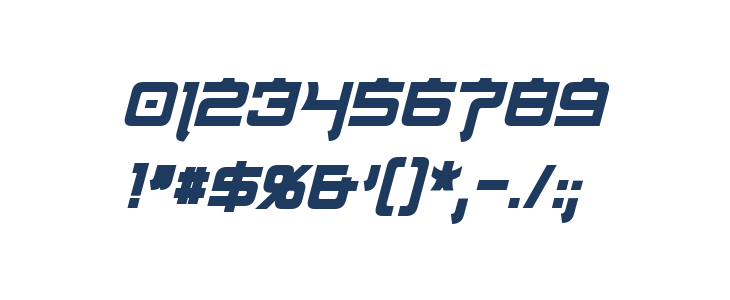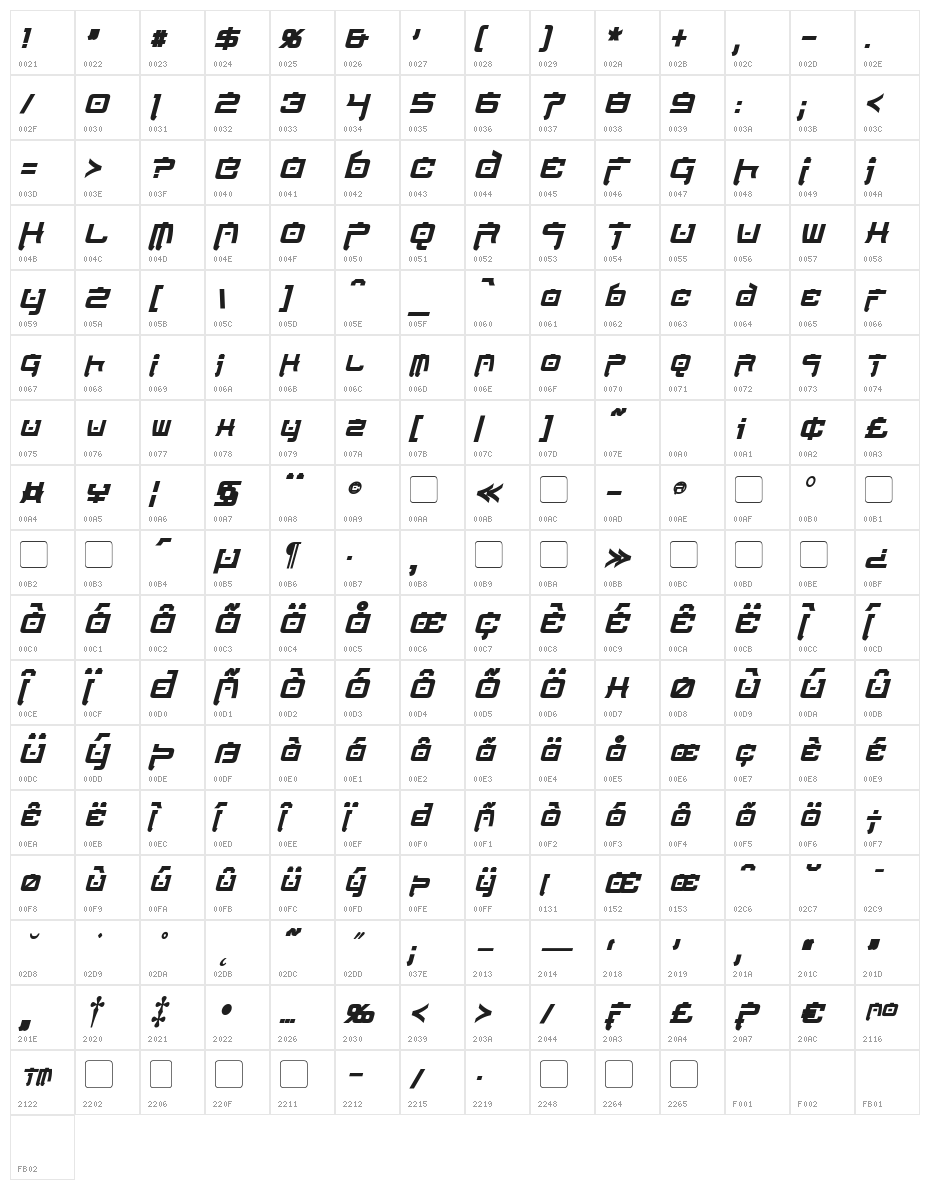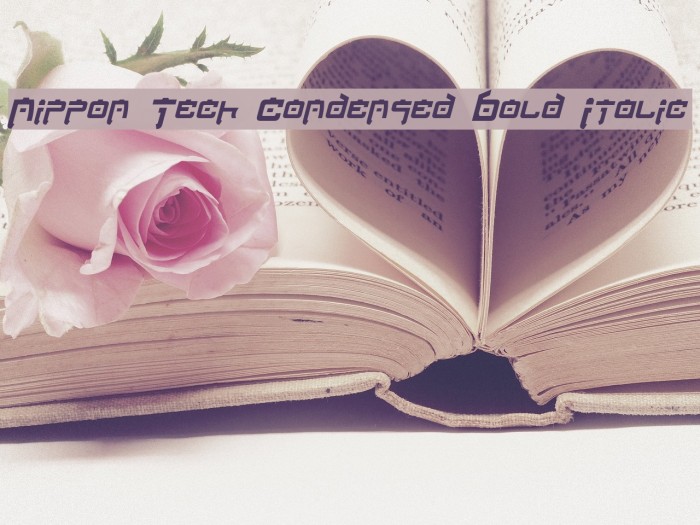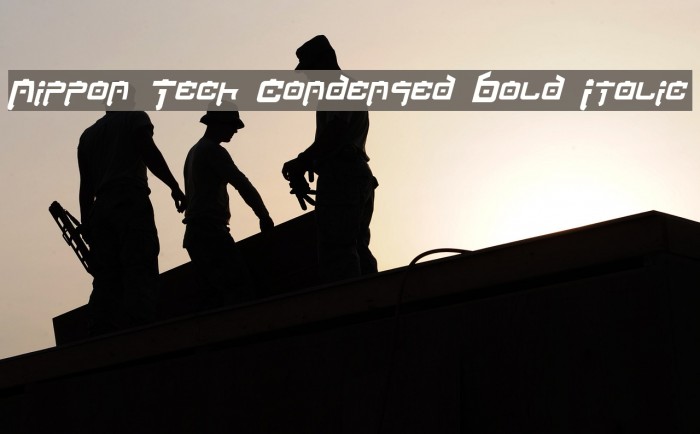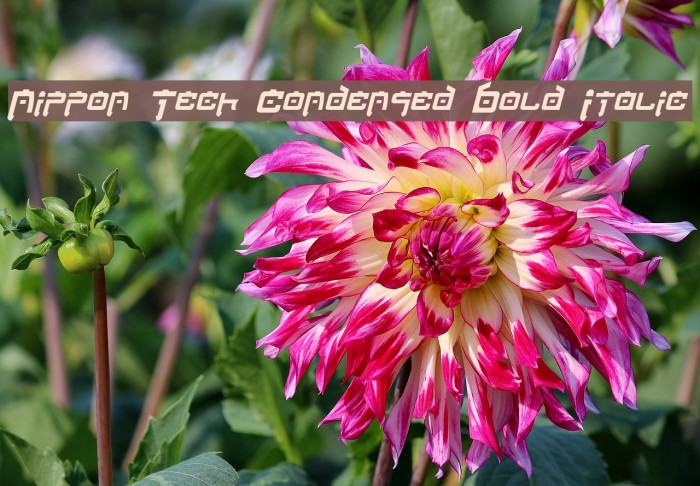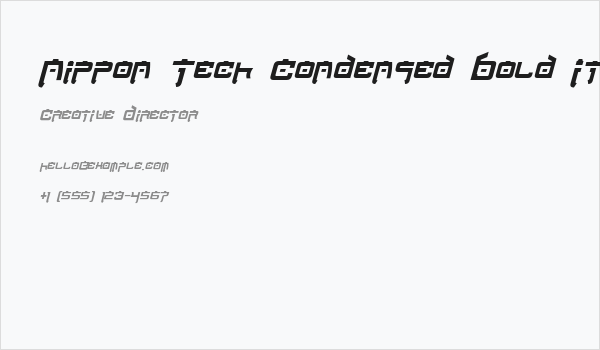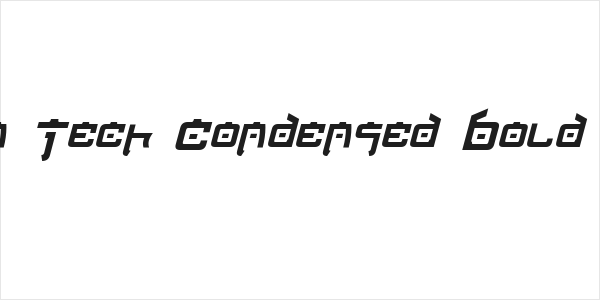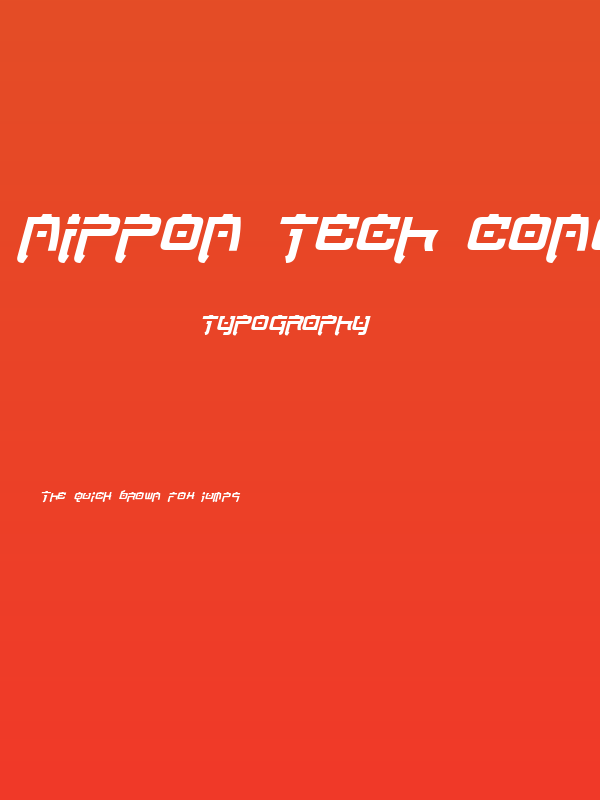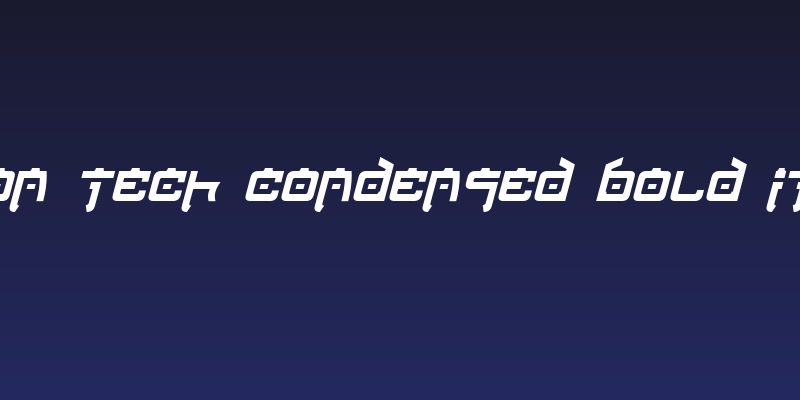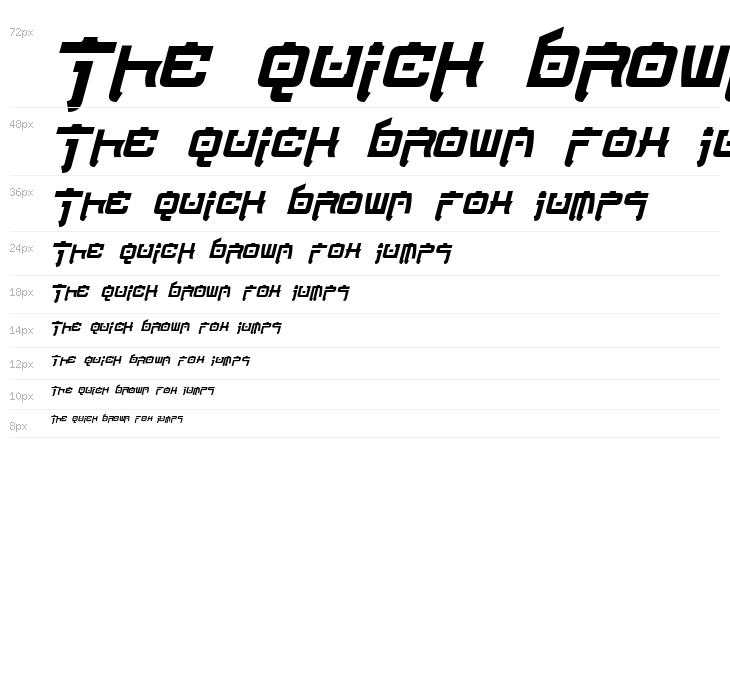
Nippon Tech Condensed Bold Italic Font
Nippon Tech Condensed Bold Italic Description
This font features a futuristic and angular design, characterized by its condensed and bold italic style. The letters have a distinct geometric structure with sharp edges and a slight slant, giving it a dynamic and modern appearance. The characters are tightly spaced, enhancing the compact look. The font's high contrast between thick and thin strokes adds to its boldness, making it stand out prominently. It includes a full set of uppercase and lowercase letters, numbers, and a variety of special characters, making it versatile for various design needs.
| Proposed Projects | Ideal for technology-themed projects, sci-fi posters, video game graphics, and branding for tech companies. |